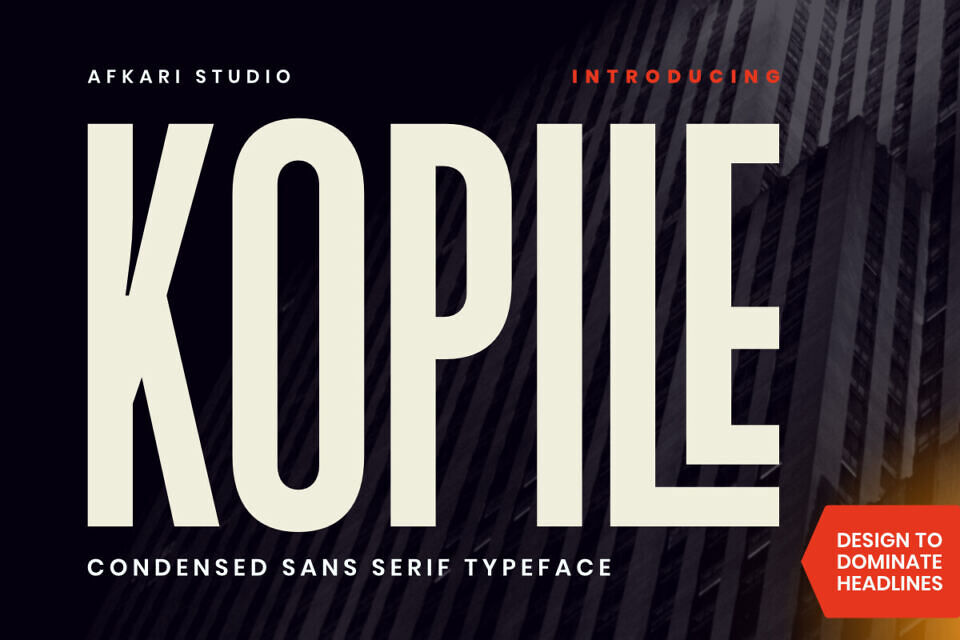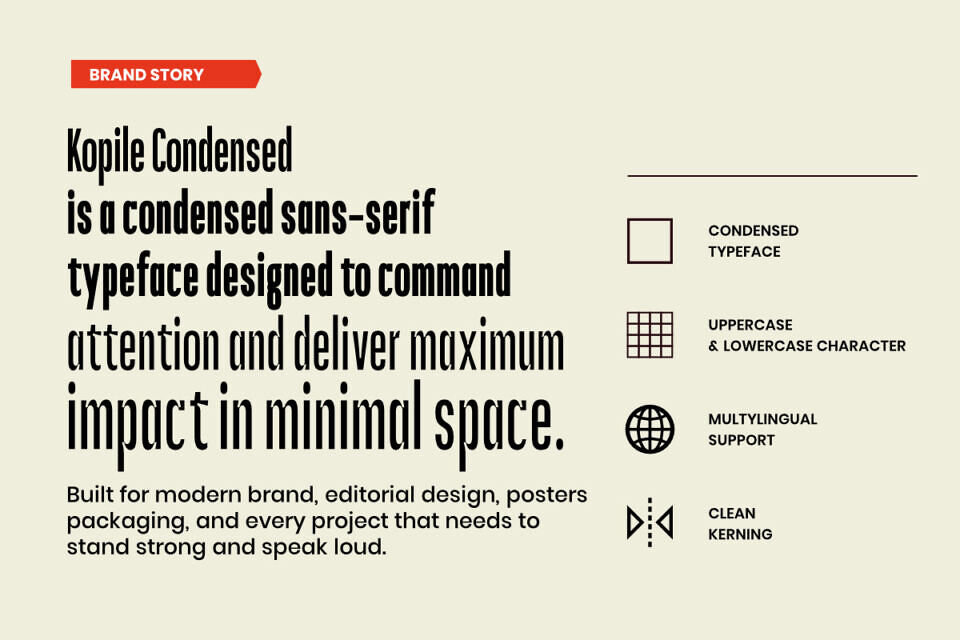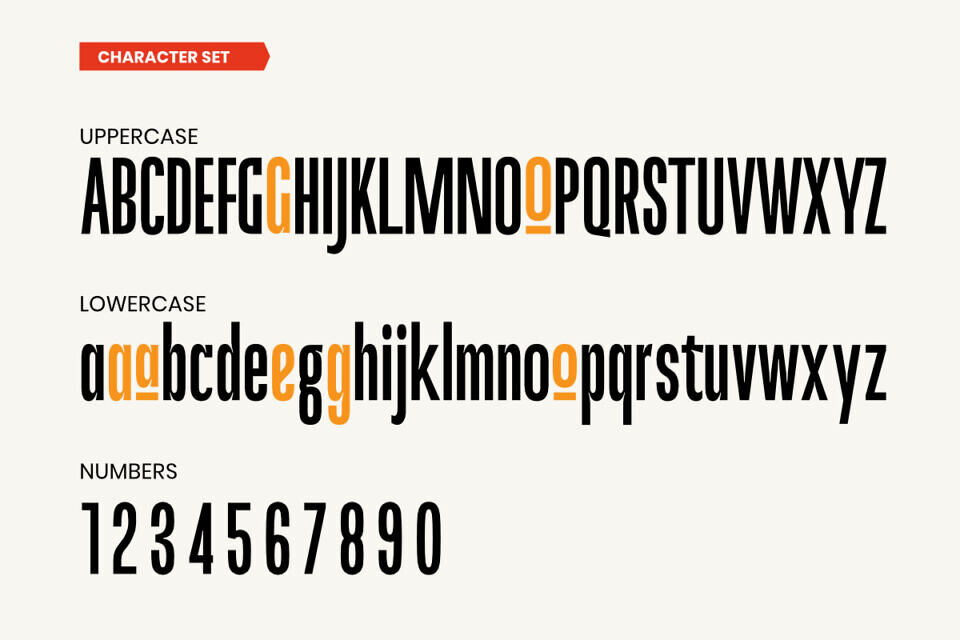
Kopile Font Family
Kopile is a modern condensed sans serif typeface designed for creators who need strong visual impact, clean readability, and versatile typography in one professional font family. Built with a sleek condensed structure and balanced geometric proportions, Kopile delivers a modern aesthetic that works perfectly across branding, editorial, advertising, and digital design projects.
Whether you are designing fashion branding, tech visuals, magazine layouts, or modern advertising campaigns, this font helps your work look sharp, professional, and visually impactful.
Designed by: Afkari Studio